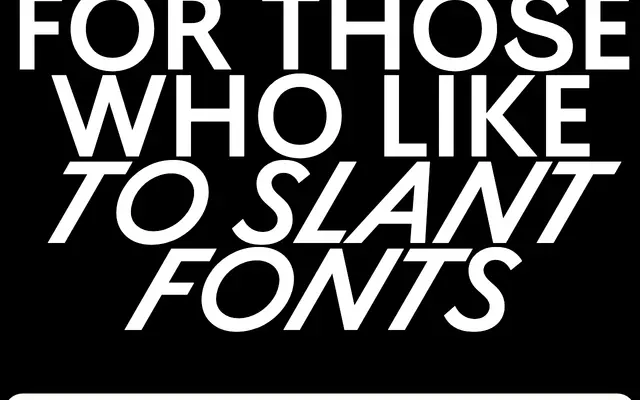
Ostia Antica
A deliberately discordant grotesque by Yoann Minet, with independently drawn capitals and lowercases and a radical 35-degree italic, originally made for a Pasolini exhibition catalogue.
Originally drawn in collaboration with Spassky Fischer for a 2013 Cinémathèque française exhibition on Pasolini, the family pairs Johnston-proportioned monumental capitals with exaggerated 19th-century grotesque lowercases that have no logical structural continuity between them. Three weights, each individually drawn without linear interpolation, give the family a deliberately uneven typographic colour. The italic's 35-degree slant, far beyond the conventional 10-degree convention for sans-serifs, creates a distinct type colour treated as a material in its own right rather than a stylistic variation.
A sans-serif grotesque drawing on 19th-century accidental grotesques for the lowercase and Johnston-derived Roman capitals, with an extreme 35-degree italic slant that sets it apart from conventional sans-serif construction.